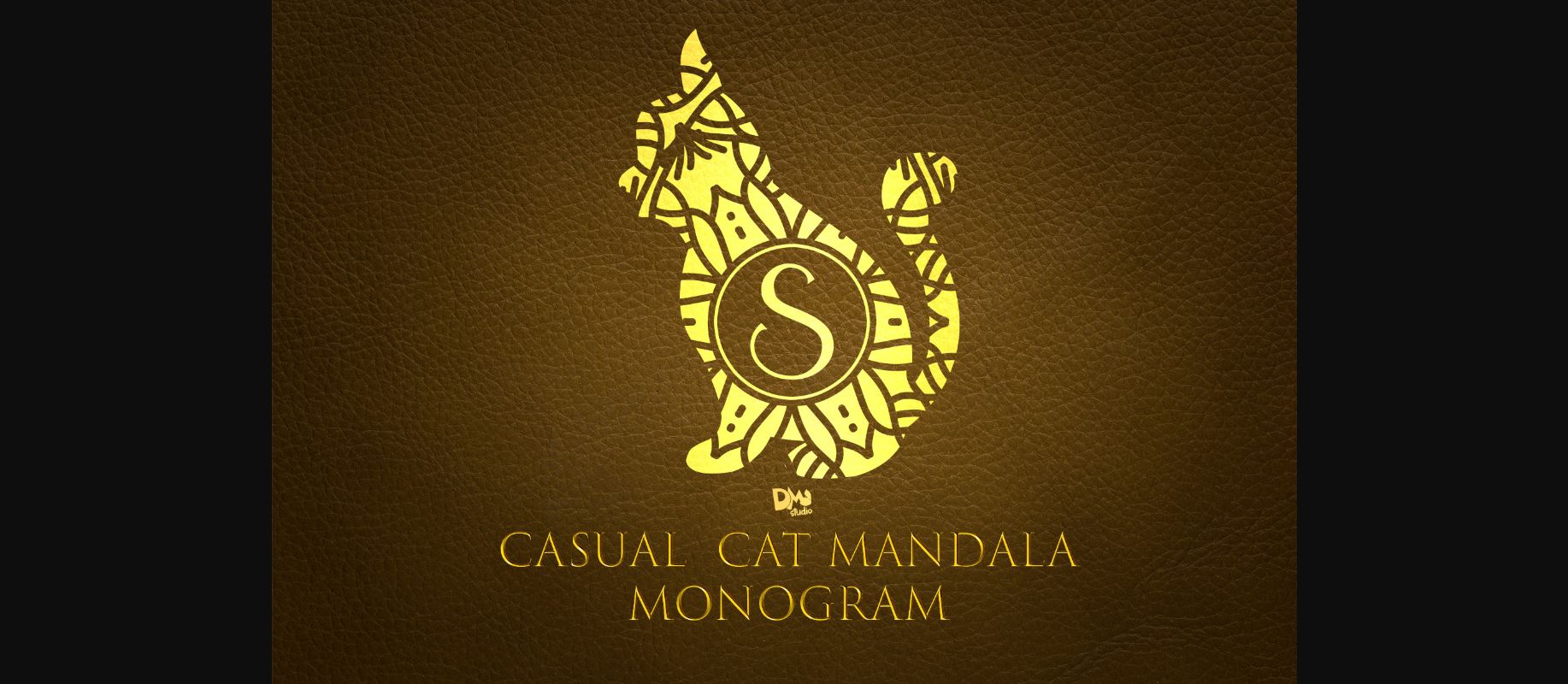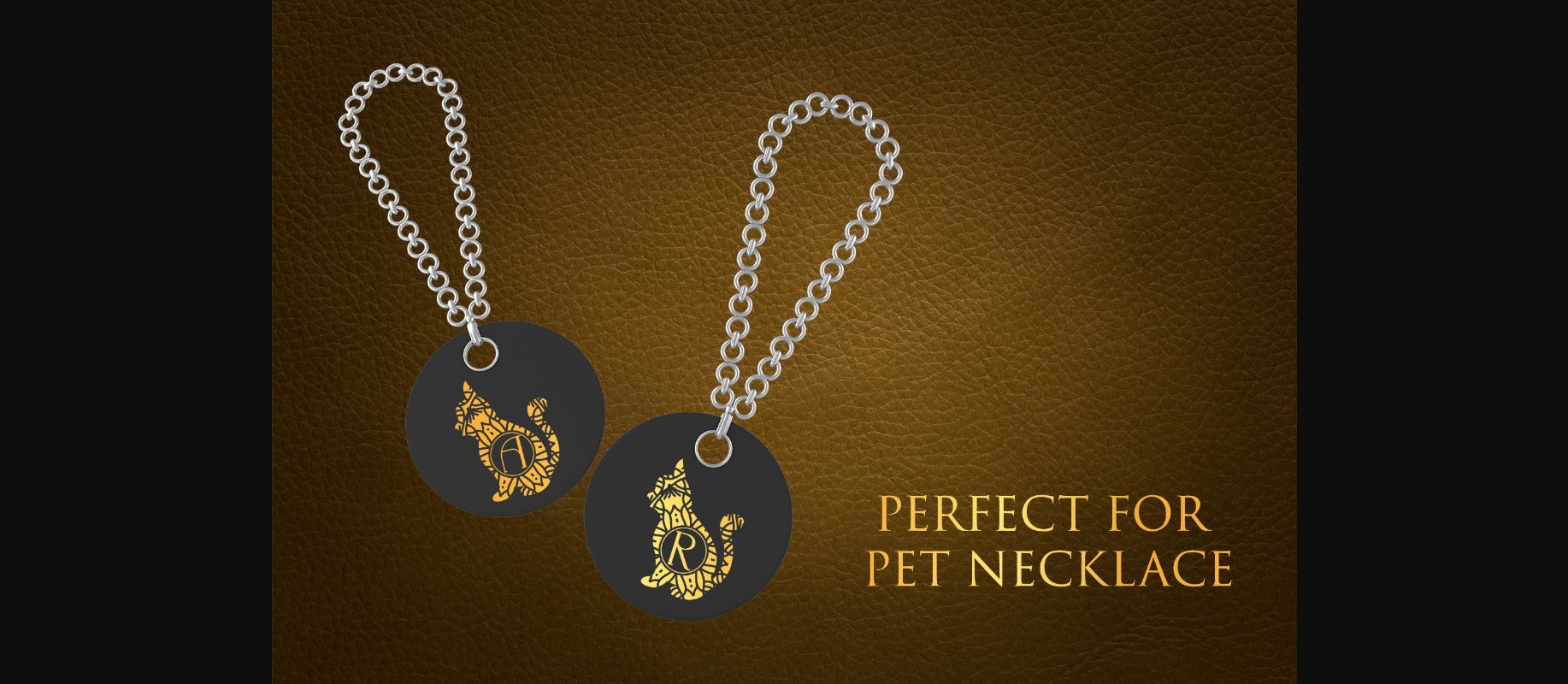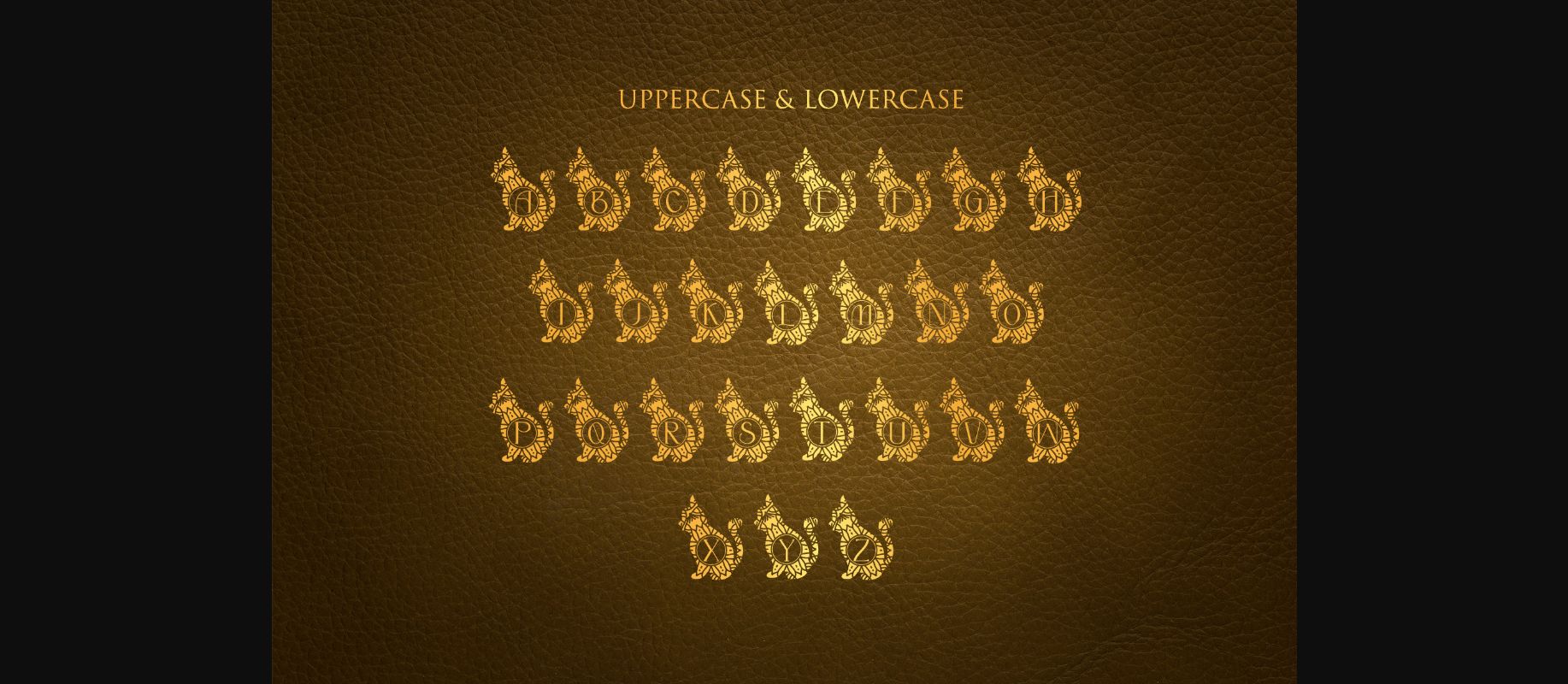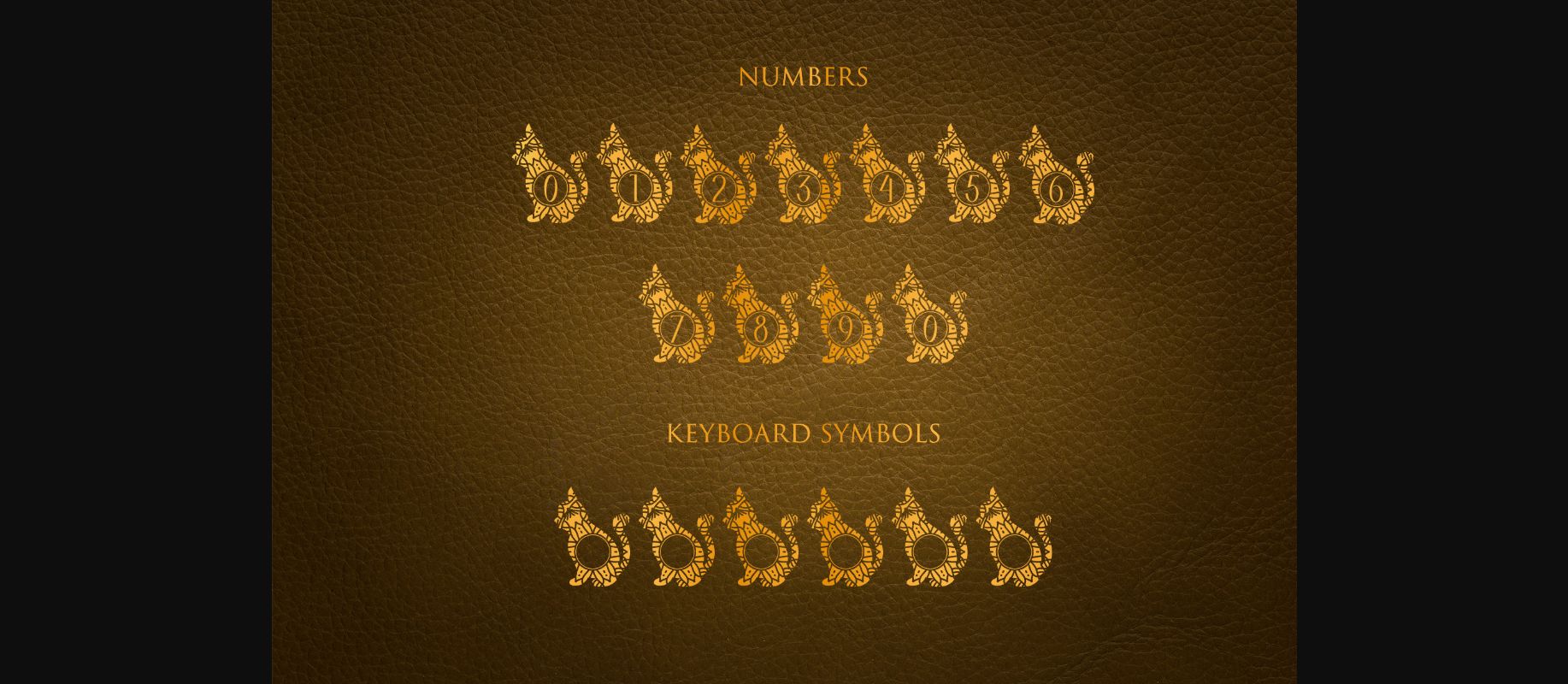
HomeDecorative FontsCasual Cat Mandala Monogram Font Decorative Fonts Casual Cat Mandala Monogram Font FacebookXPinterestWhatsApp 1 of 6 ... Casual Cat Mandala Monogram Font Poster 2... Casual Cat Mandala Monogram Font Poster 3... Casual Cat Mandala Monogram Font Poster 4... Casual Cat Mandala Monogram Font Poster 5... Casual Cat Mandala Monogram Font Poster 6... About Casual Cat Mandala Monogram Font Casual Cat Mandala Monogram is the ultimate cat-lovers font. This purrfect decorative typeface will enhance any creative project dedicated to kittens. DOWNLOAD NOW People also explored Elementary Hand Font Rastury Signature Font Cyber Graph Font Asiatic Lily Flower Monogram Font Snazzy Small Font Camping in Summer Font Chunky Monkey Font Rimona Font Weslona Font 321 0 TagsCasual Cat Mandala Monogram Font Previous articleBigo Mandala FontNext articleCurious Cat Mandala Monogram Font LEAVE A REPLY Cancel reply Comment: Please enter your comment! Name:* Please enter your name here Email:* You have entered an incorrect email address! Please enter your email address here Website: Save my name, email, and website in this browser for the next time I comment. Personal Use Free Sebastopol Personal Use Free Read more about this font Welliana Personal Use Free Read more about this font Dead Block Personal Use Free Read more about this font Aelten Personal Use Free Read more about this font BLOG How to Cut Any Font on Cricut: Convert a Font to SVG (Free) Turn any font into a clean SVG so it cuts crisp on Cricut - a quick 3-step workflow using a free font-to-SVG tool. 5 Fonts That Will Dominate Design Trends in 2026 Exploring Font Trends Free Fonts Risk: Why Free Fonts Can Be Dangerous for Designers